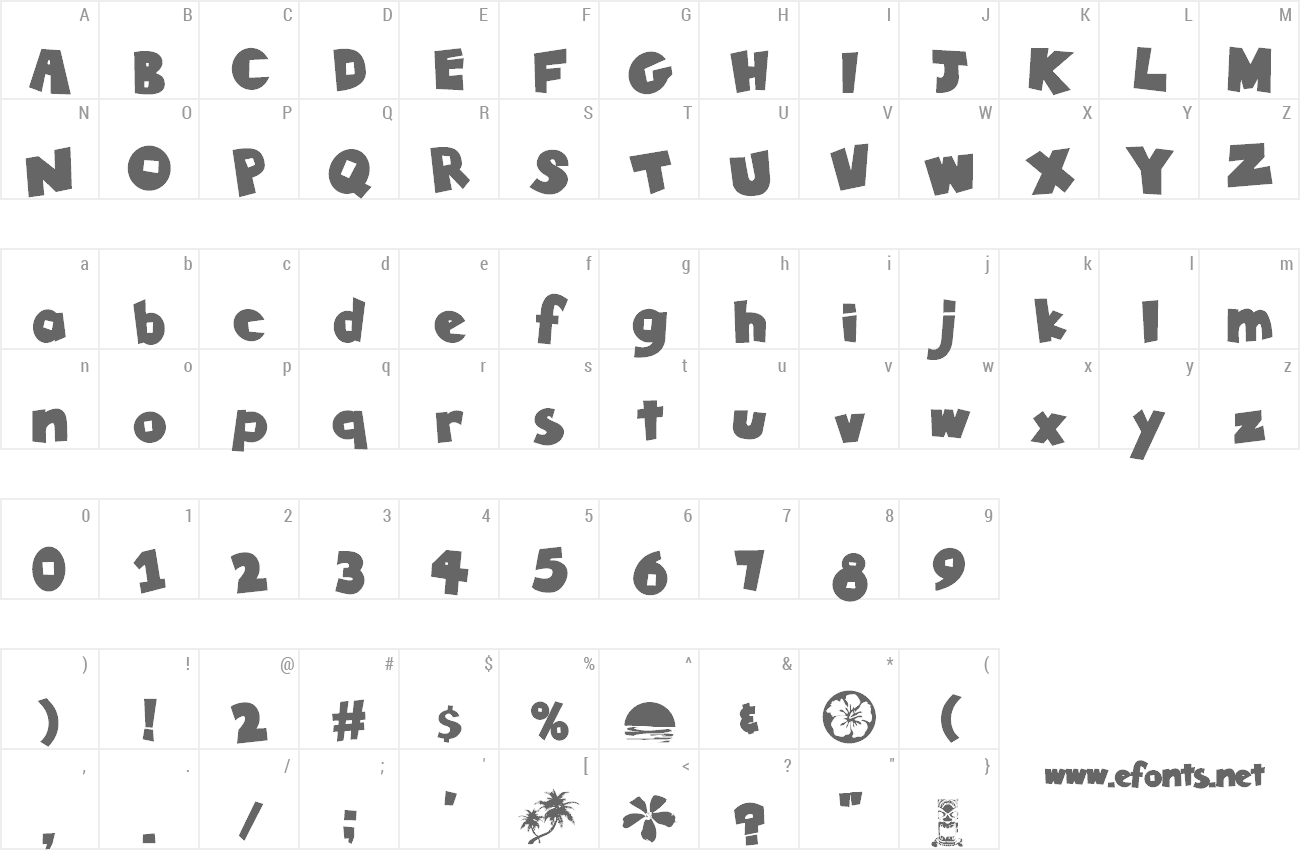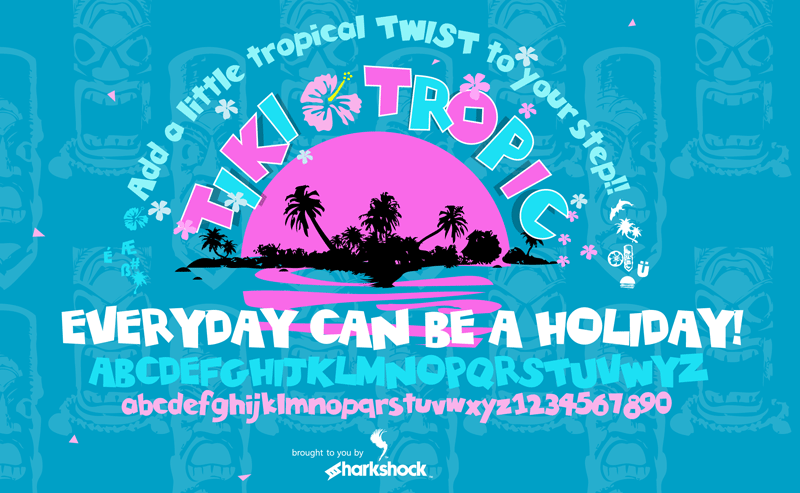
Preview and download Tiki Tropic Font. Created by Sharkshock in Fancy Cartoon styles with Free for personal use license.
TrueTypeFont: Tiki Tropic (Regular, and Outline) Dennis Ludlow 2015 all rights reserved Sharkshock Productions dennis@sharkshock.net Aloha sun worshippers! Whether Hawaii is your idea of paradise, exotic Thailand, or beautiful Costa Rica we have a typeface that wants to take you there. This irregular display font is sure to make the others look pale by comparison. Think "fun in the sun", island drinks, and sandy beaches the next time you'd like to inject a splash of the tropics. Tiki Tropic is loaded with graphics like jumping dolphins, palm trees, and Tiki masks to quickly add some visuals to a text document. You can also quickly convert to vector outlines in Illustrator. Basic latin, numbers, punctuation, European accents, and kerning are all included. This font like my others are free for personal use only as long as this readme file stays intact. For commercial use please contact me at dennis@sharkshock.net to discuss an end user license agreement. You can also visit www.sharkshock.net/license for more info. I also design custom fonts for businesses, logos, and many other things. If you'd like to leave me a PayPal donation you can use my email address above. Your generosity will be most appreciated! More... |